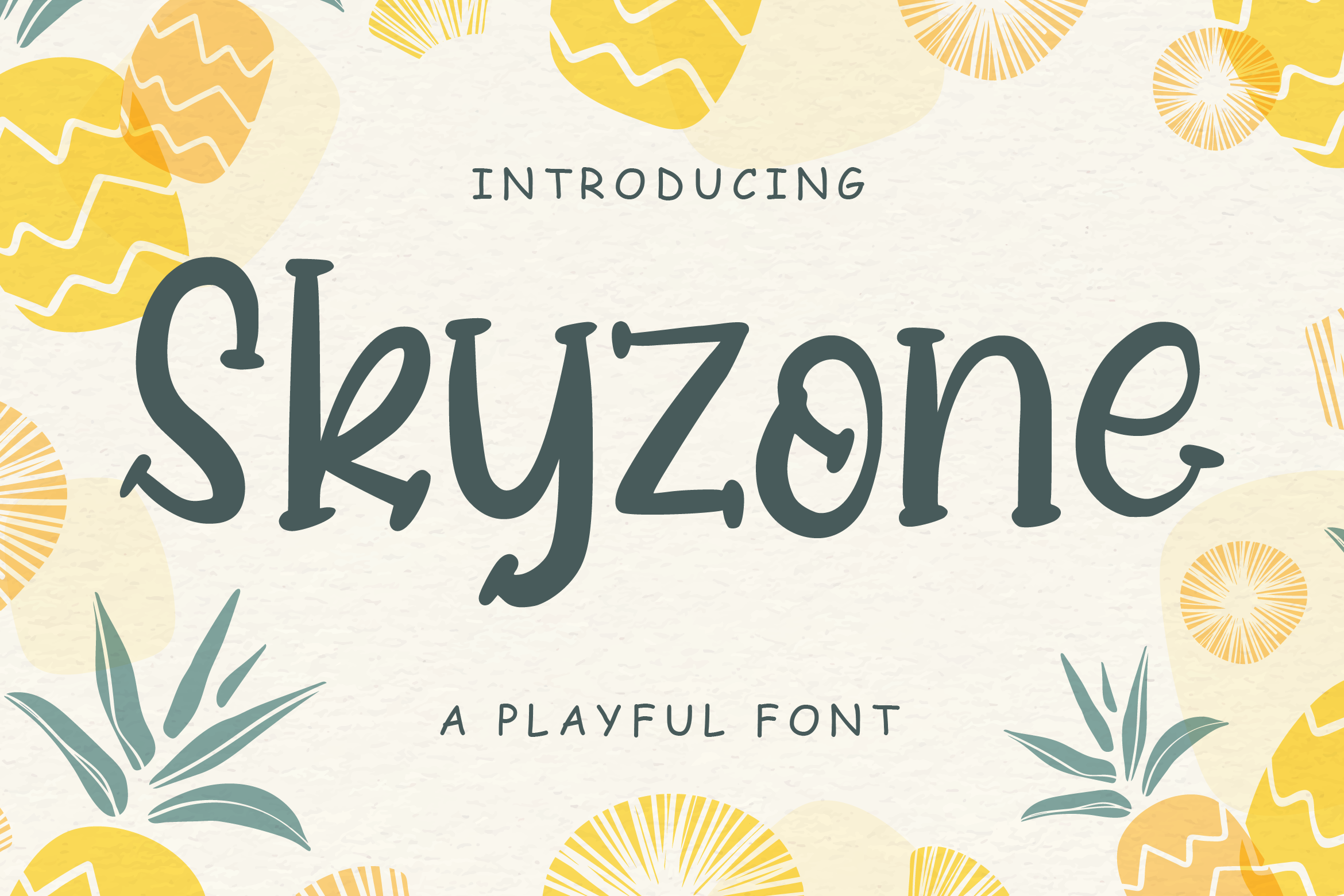
Skyzone - Quirky And Playful Handwritten Font Font
About Skyzone - Quirky And Playful Handwritten Font
Skyzone is a cute, quirky and playful handwritten font font. It can be used for various purposes such as logos, wedding invitations, headings, t-shirts, letterhead, signage, labels, news, posters, badges and so much more.